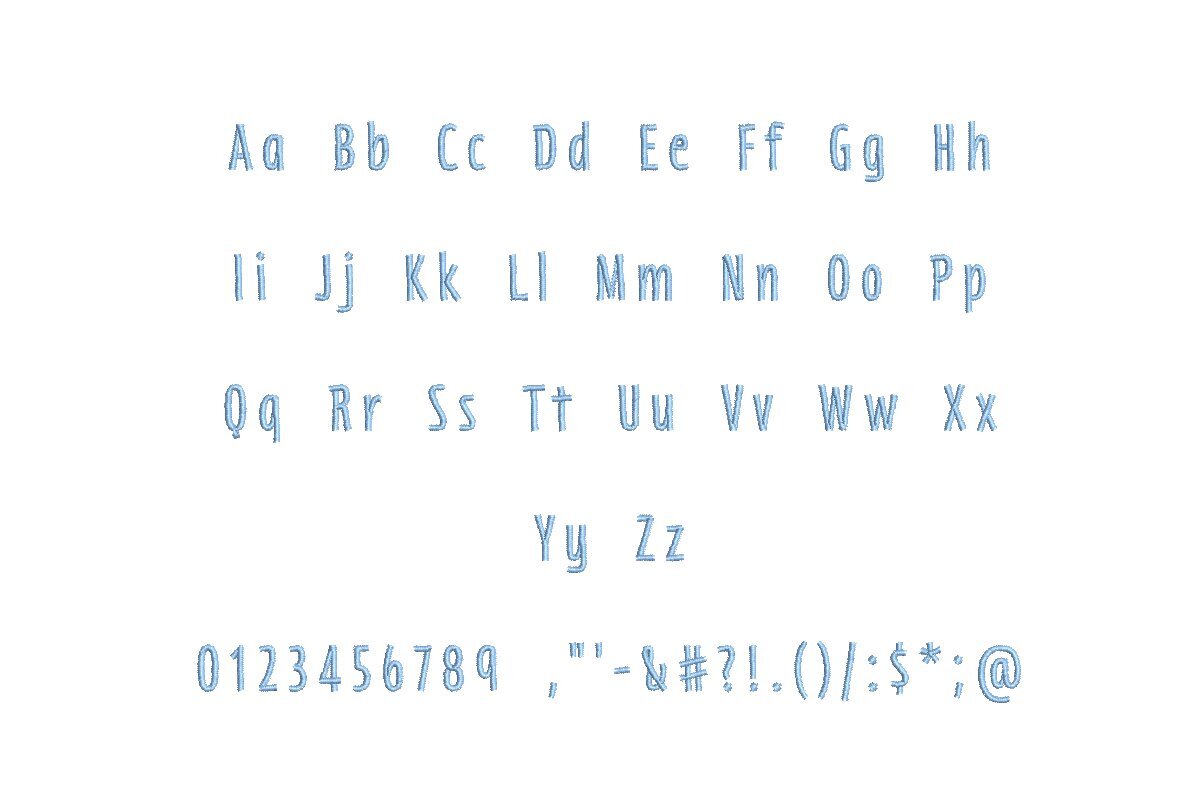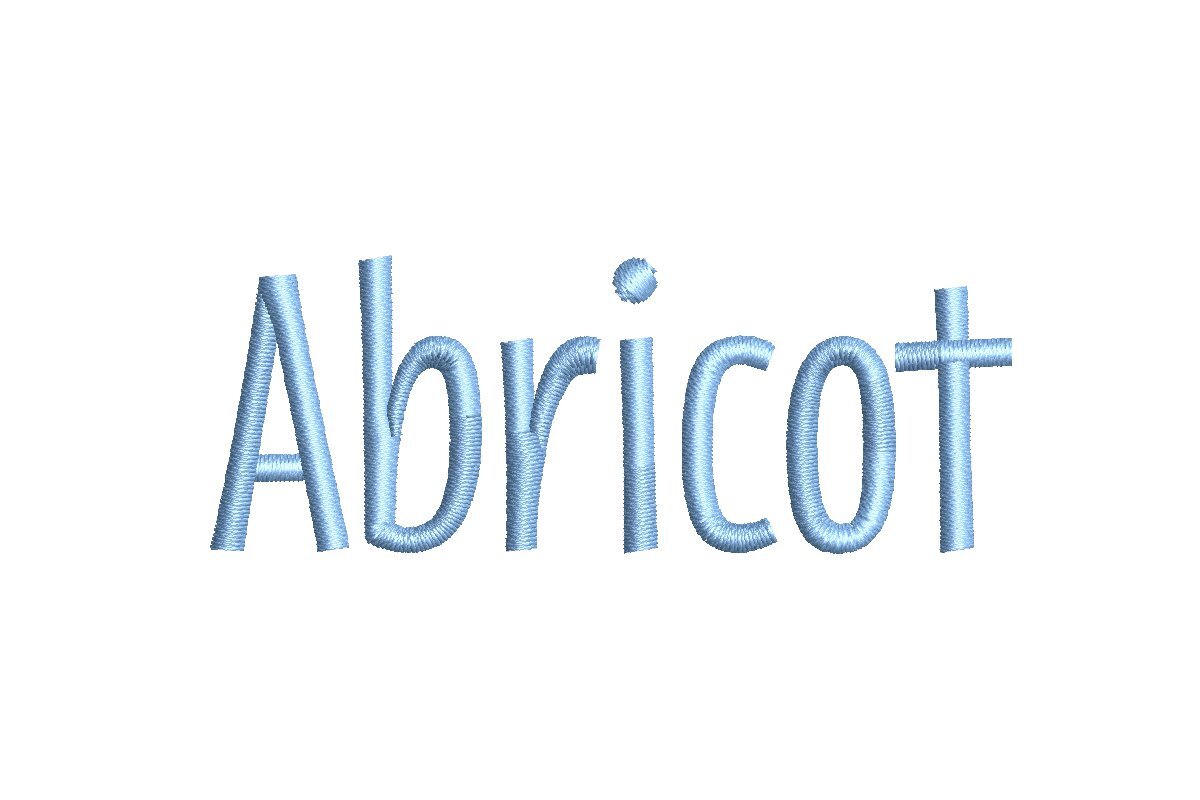
Abricot ESA machine embroidery font alphabet preview
Abricot ESA machine embroidery font additional lettering sample
Abricot ESA Font
Introducing the Abricot ESA Font - Your Ultimate Embroidery Companion! Crafted to perfection for Wilcom Studio e4.5.6 and Hatch 3 versions and beyond, this font unlocks boundless creativity in your embroidery projects. With its sleek, modern design and seamless compatibility, Abricot ESA adds a touch of sophistication to your embroidery designs. Elevate your creations with this user-friendly, digitized font that ensures flawless stitching, every time. Explore endless possibilities and produce eye-catching, professional-quality embroidery effortlessly. Experience the epitome of style and precision with Abricot ESA Font. Upgrade your Wilcom Studio and Hatch software today and get ready to impress with every stitch!